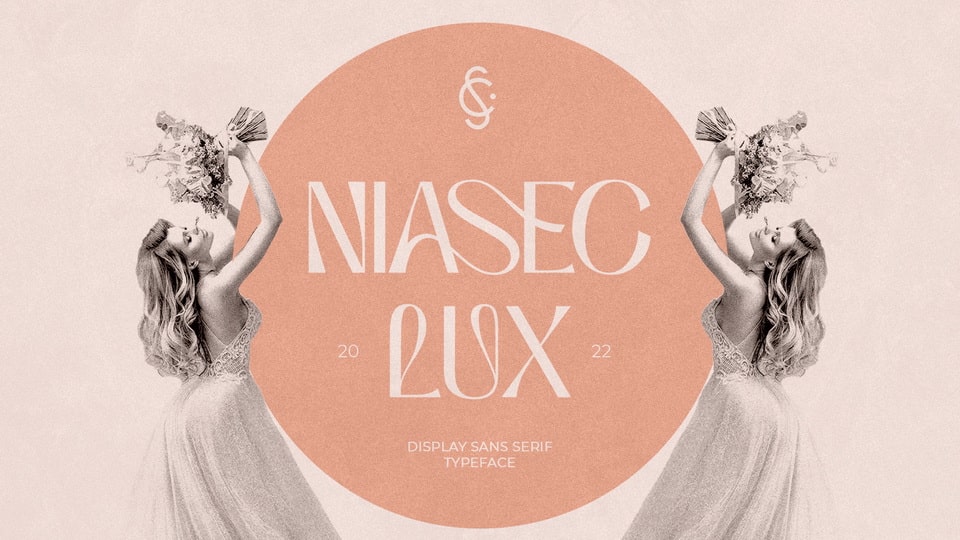
Download Niasec Lux font, an experimental typeface with organic-looking curves at certain angles in the typeface. A little touch of calligraphy refers Niasec Lux to the initial form and exploratory line movements to decorate the stylistic set and ligatures.